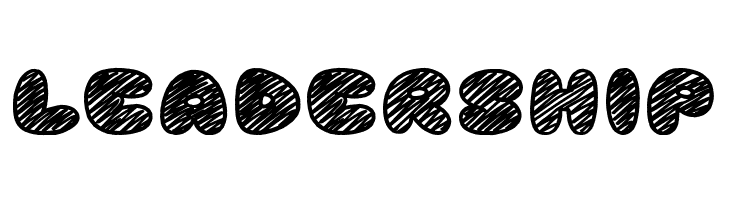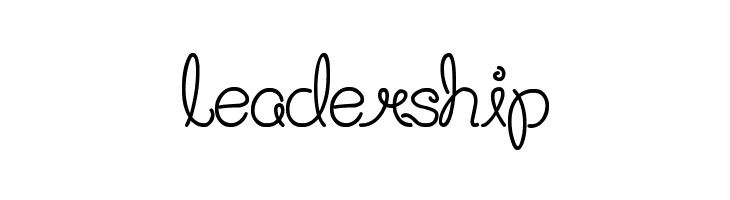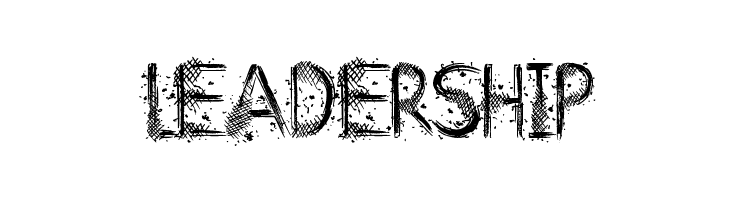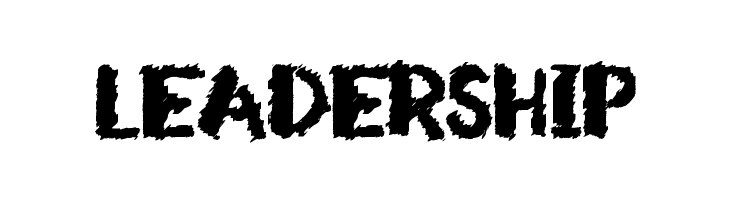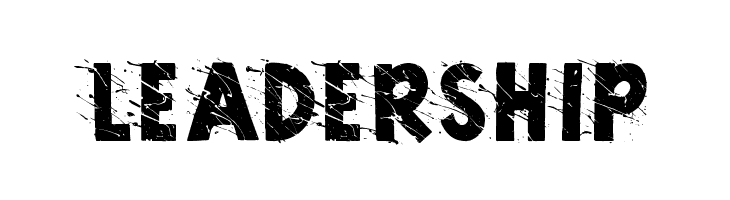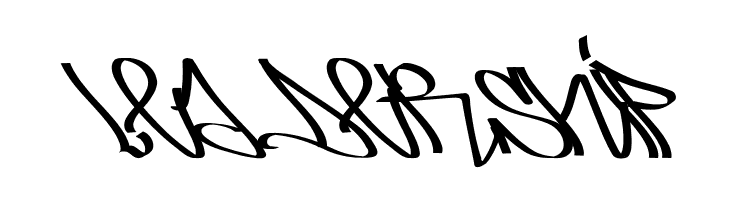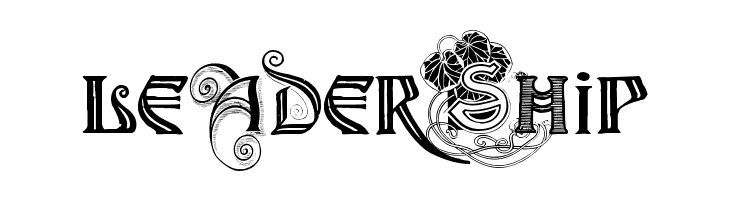
An elegant italic font with medium contrast and a sophisticated style.
A thin, italic typeface with elegant, flowing lines and a modern aesthetic.
A dynamic and expressive font with sharp, angular strokes and a sense of motion.
A modern, sleek font with tall, narrow characters and a minimalist design.
A bold, graffiti-inspired font with dynamic and expressive characters.
A graffiti-inspired font with bold, sweeping lines and a dynamic, urban aesthetic.
A bold, distressed font with a fiery, dynamic appearance.
A modern, geometric sans-serif font with clean, rounded edges and uniform stroke width.
A bold, hand-drawn font with a playful, scribbled texture.
A bold, brush-style font with expressive, dynamic strokes.
A decorative, grunge-style font with textured, artistic characters.
A whimsical, hand-drawn font with looping, interconnected strokes and a playful aesthetic.
A whimsical, artistic font with flowing, interconnected strokes and playful loops.
An elegant, decorative script font with intricate uppercase and graceful lowercase letters.
An ornate, decorative font inspired by the Art Nouveau style, featuring intricate curves and details.
A bold, distressed font with a grunge texture for a rugged, edgy look.
An elegant script font with decorative swirls and medium contrast, perfect for romantic designs.
A bold, Art Deco-inspired font with geometric shapes and intricate patterns.
A bold, decorative font with an Art Deco style and intricate patterns.
A bold, artistic font with high contrast and playful curves.
A bold, flowing font inspired by the Art Nouveau movement, featuring elegant curves and organic shapes.
A decorative Art Nouveau font with bold contours and intricate, organic shapes.
An elegant, elongated font with Art Nouveau-inspired curves and fluidity.
A bold, decorative font inspired by the Art Nouveau style with flowing, organic shapes.
A bold, Art Nouveau-inspired font with flowing, organic shapes and intricate detailing.
An ornate Art Nouveau font with decorative uppercase letters and stylized lowercase characters.
An ornate, Victorian-style font with decorative flourishes and elegant details.